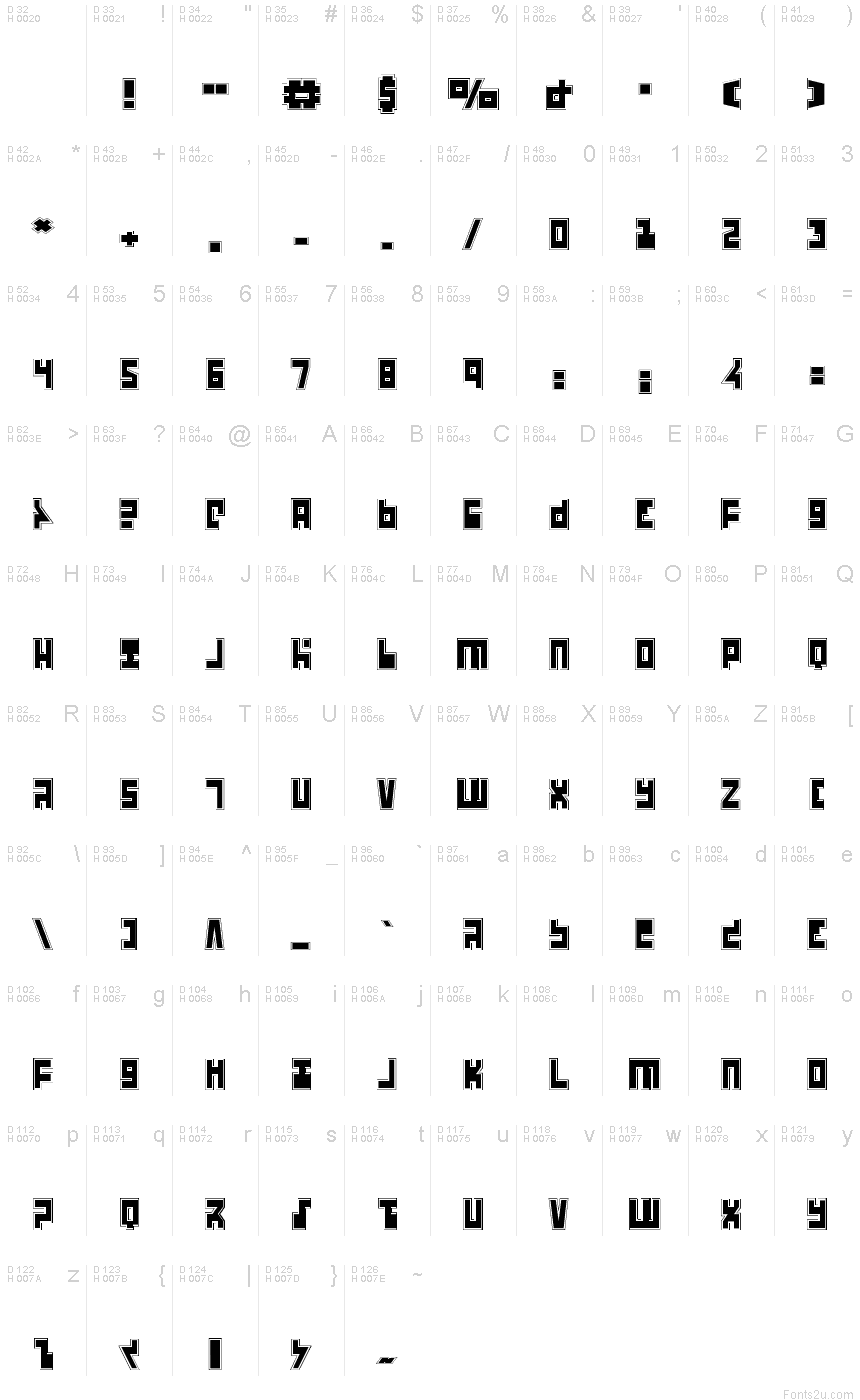
UFO Hunter Academy by Iconian Fonts is a free futuristic outline display font built from broad, squared letterforms and sharp internal cutouts. Its double-line edges give the capitals a technical, schematic look.
The design speaks directly to science-fiction and arcade audiences, making it useful for game graphics, event posters, and entertainment branding. Repeated rectangular gaps and circuit-like contours can connect the lettering to spacecraft panels, electronic interfaces, and other mechanical imagery.
UFO Hunter Academy